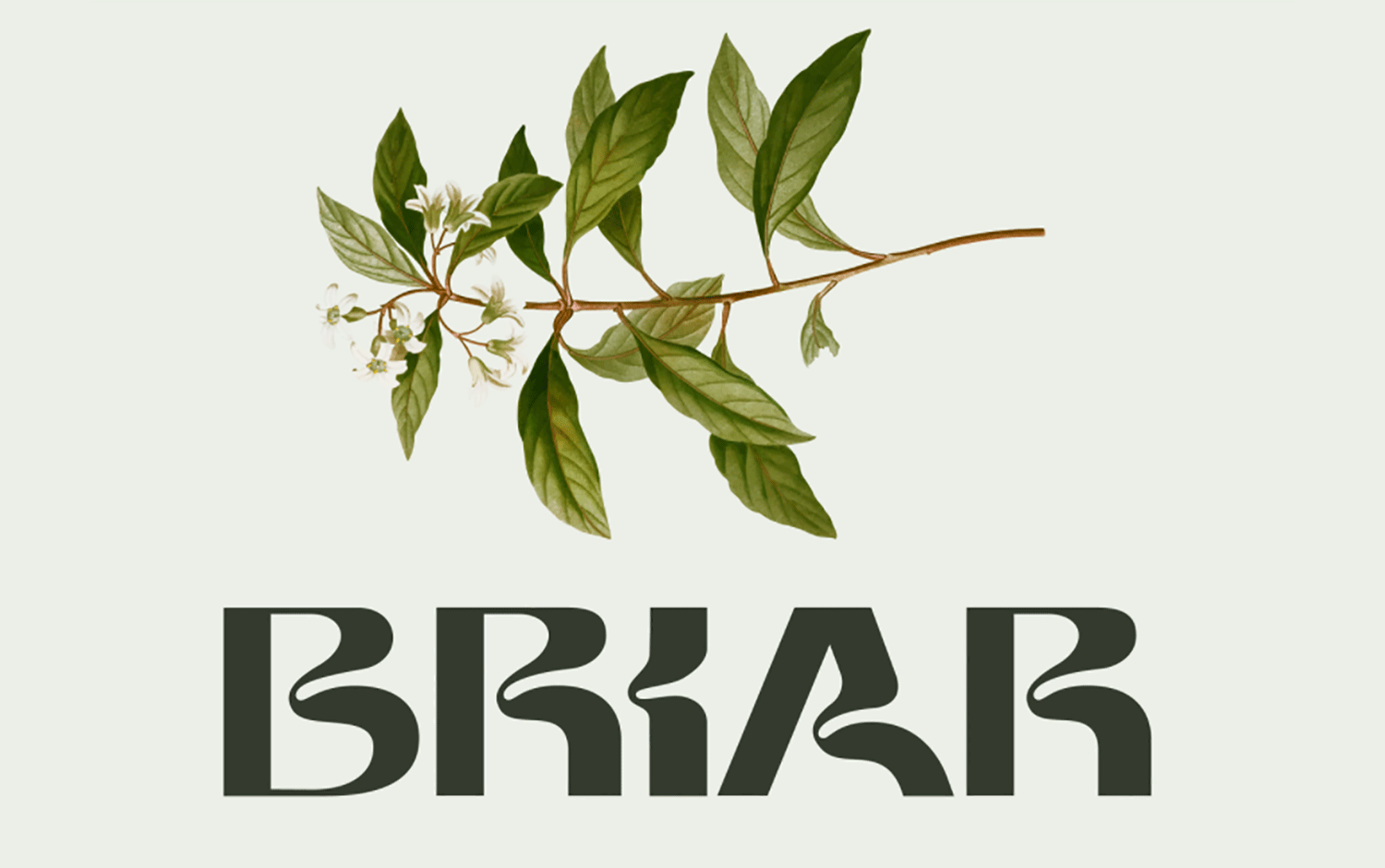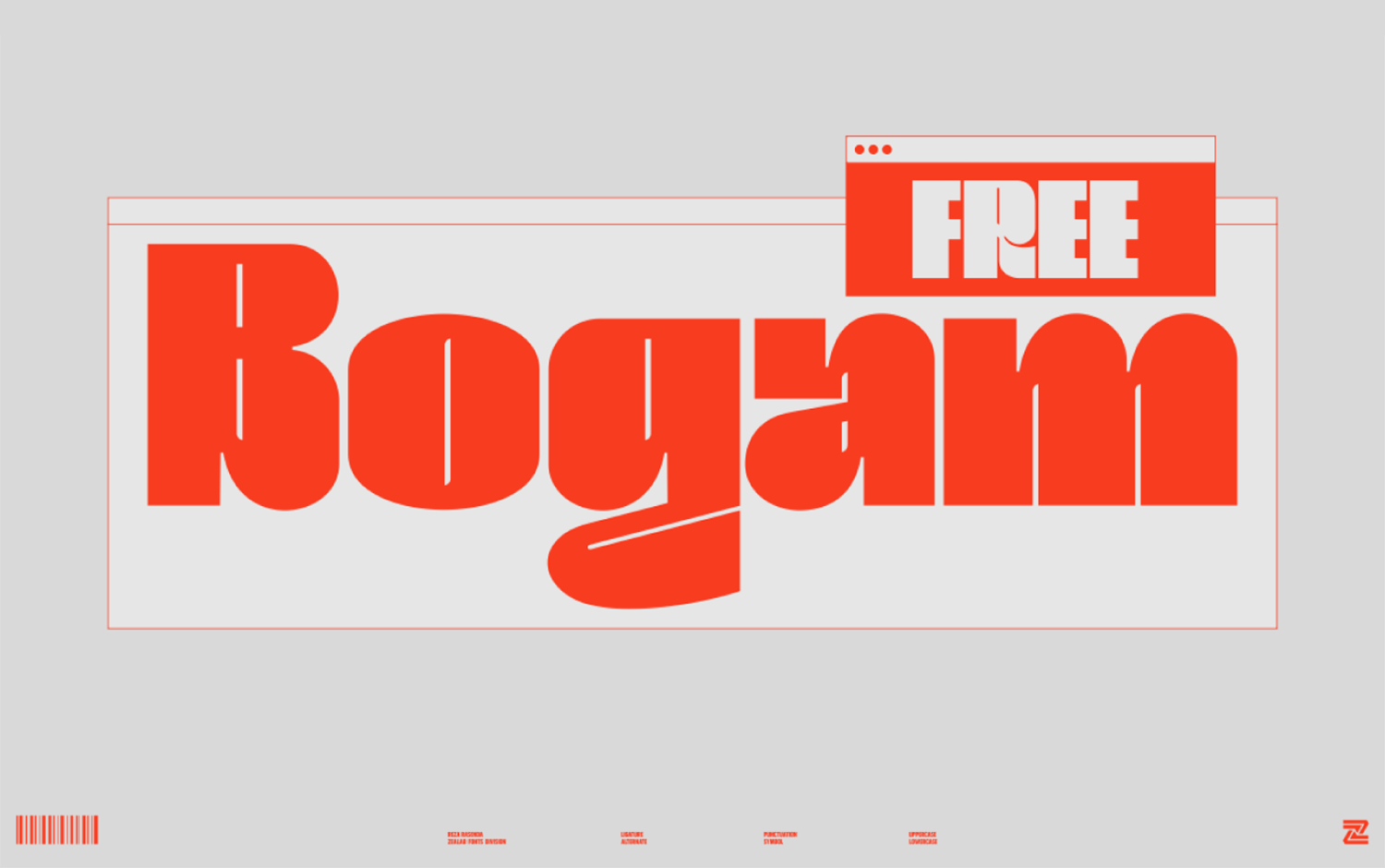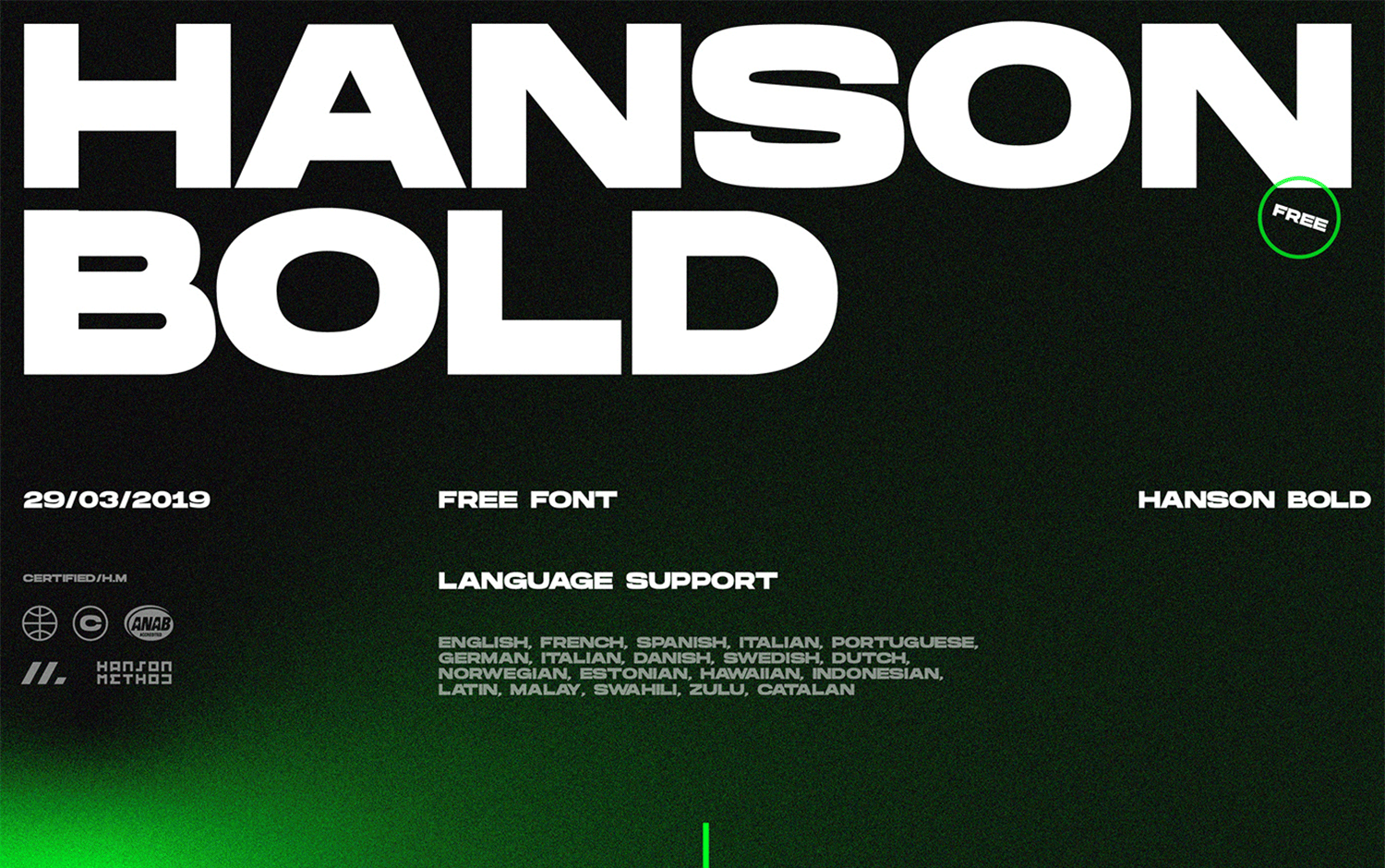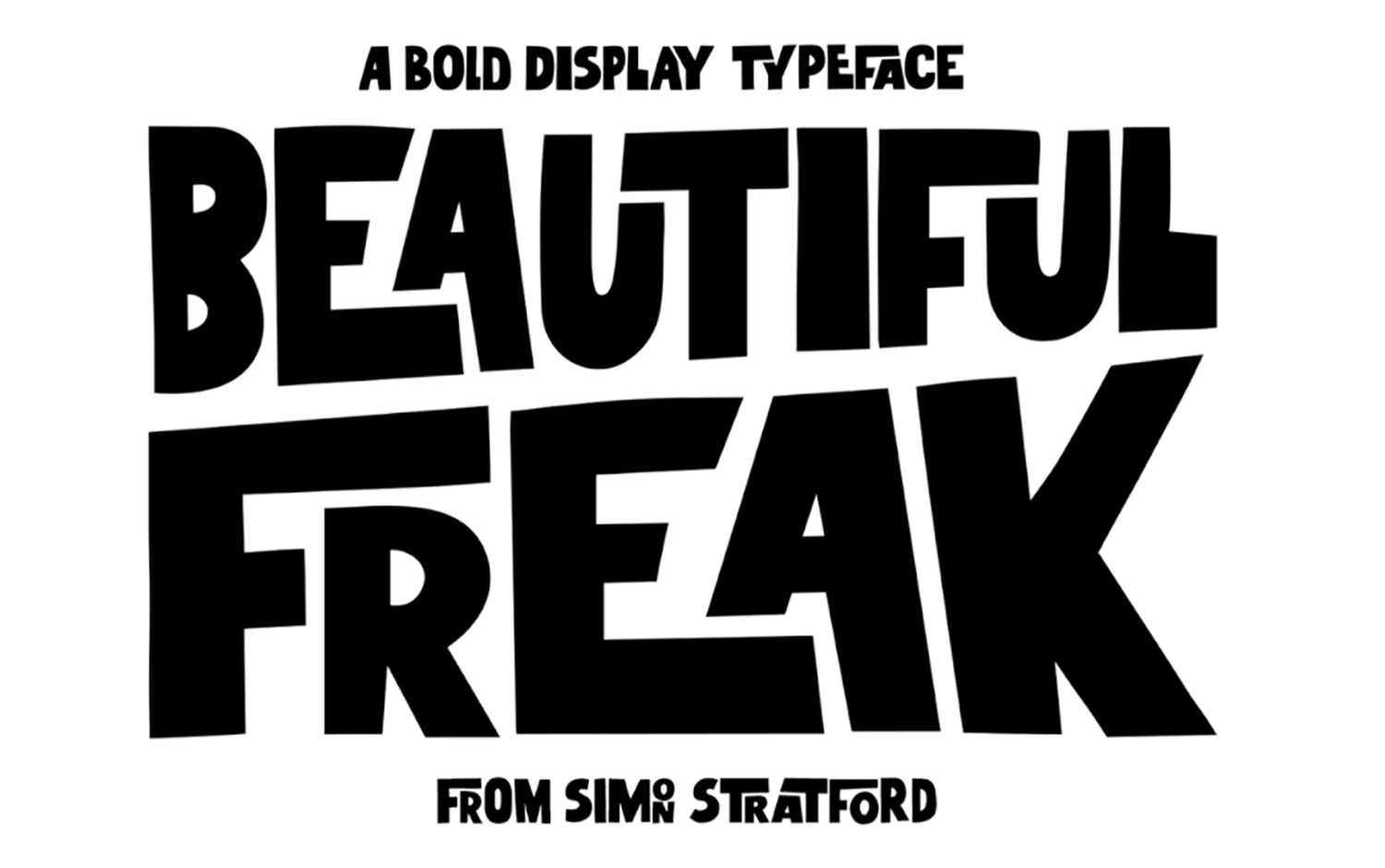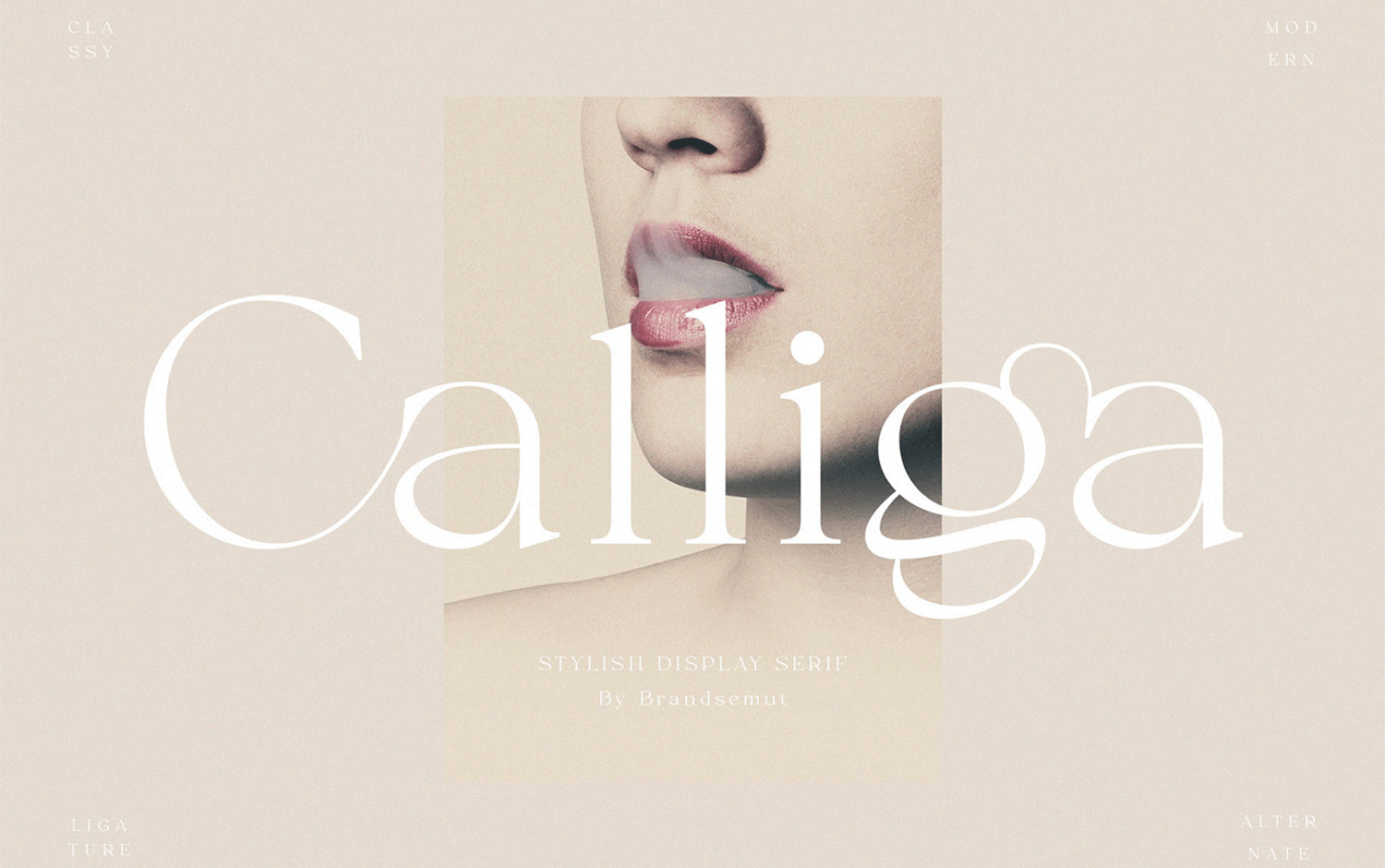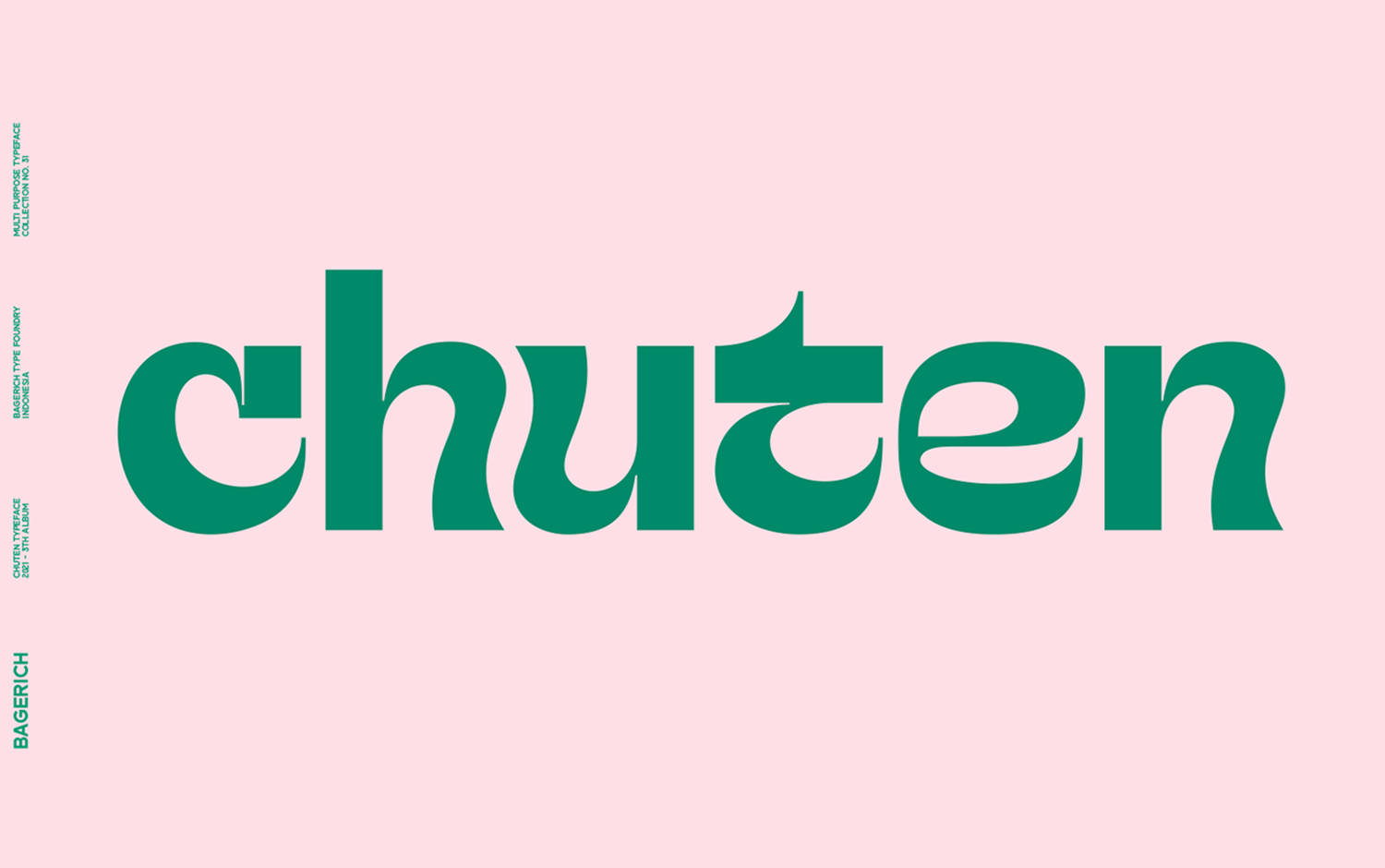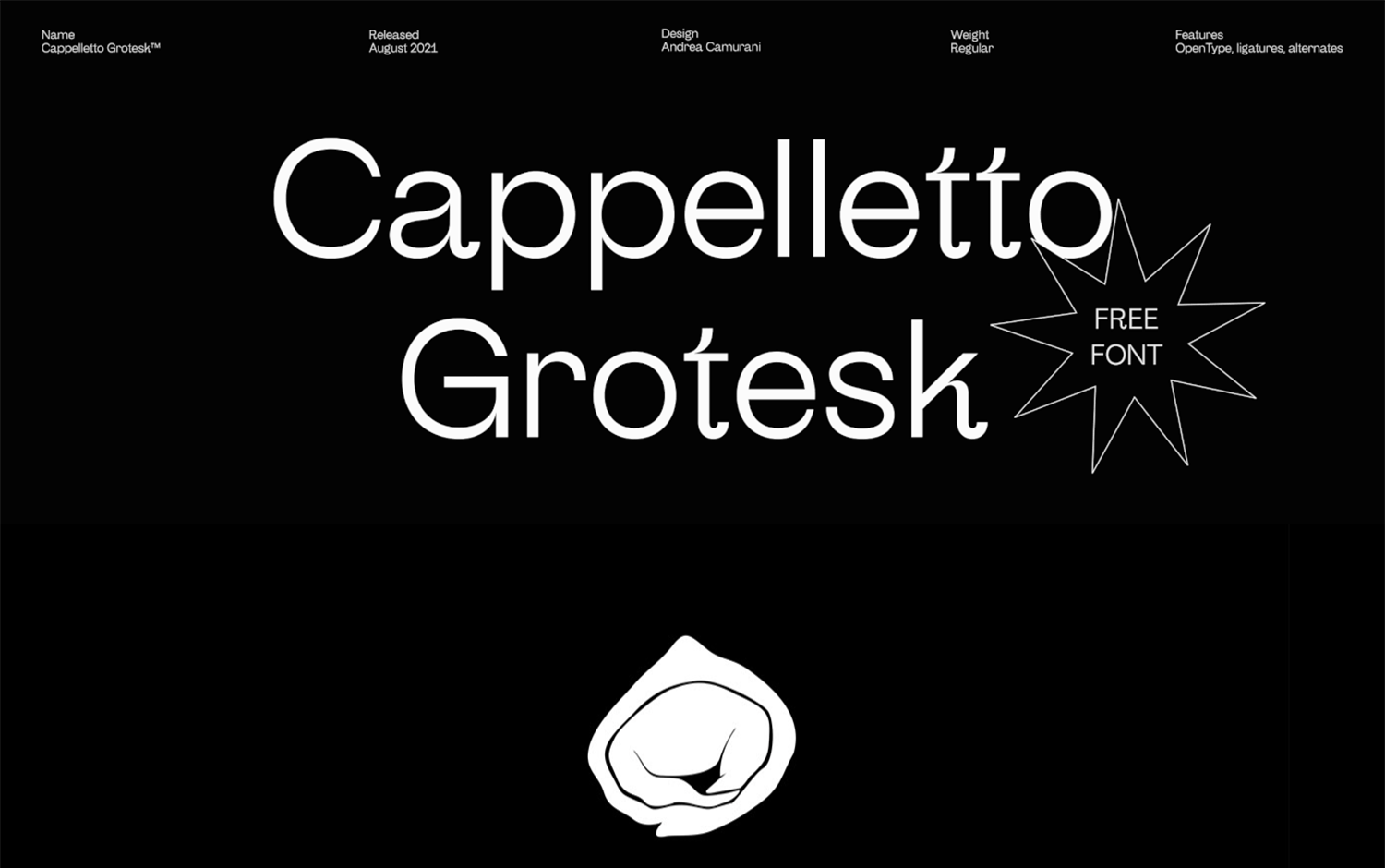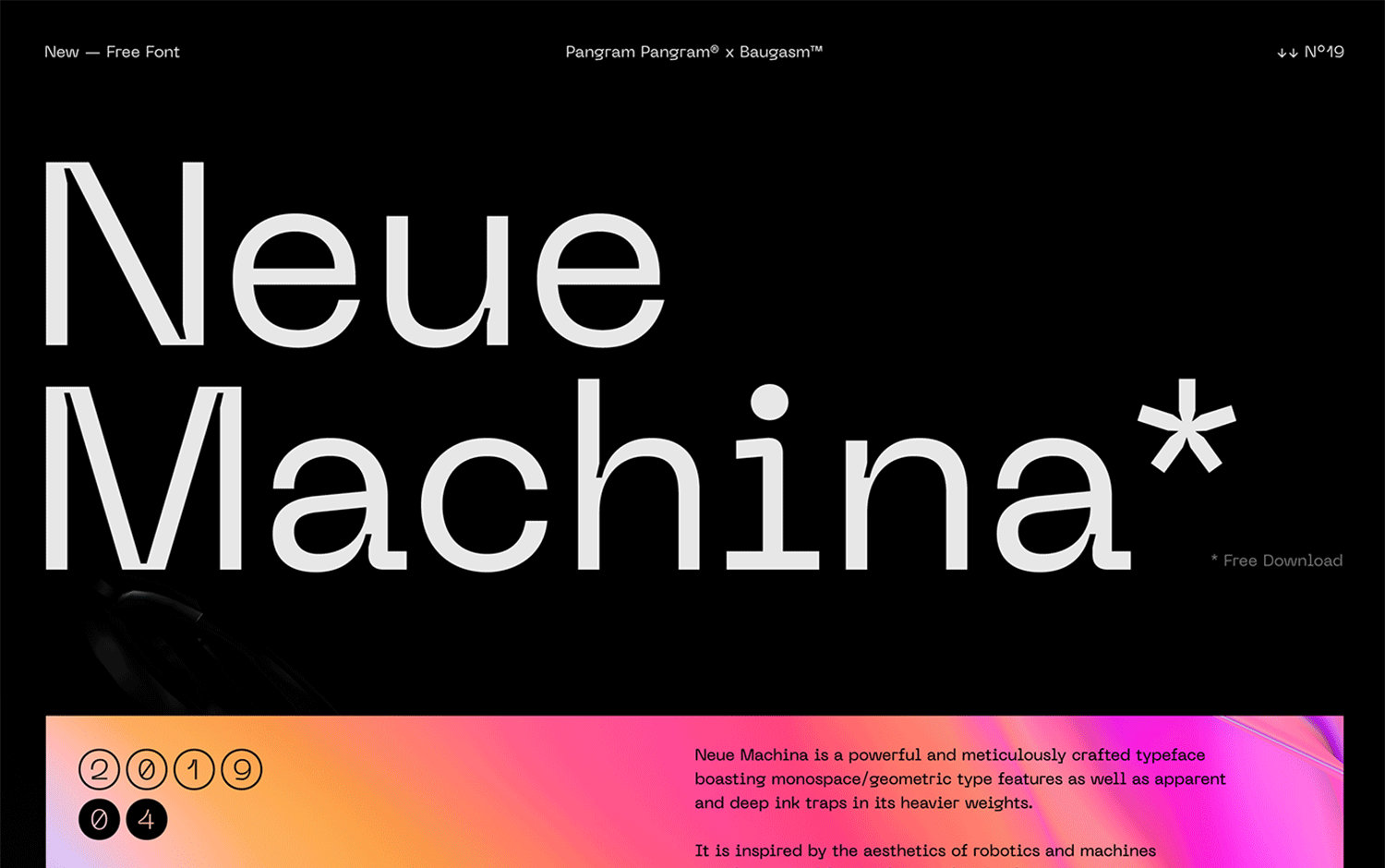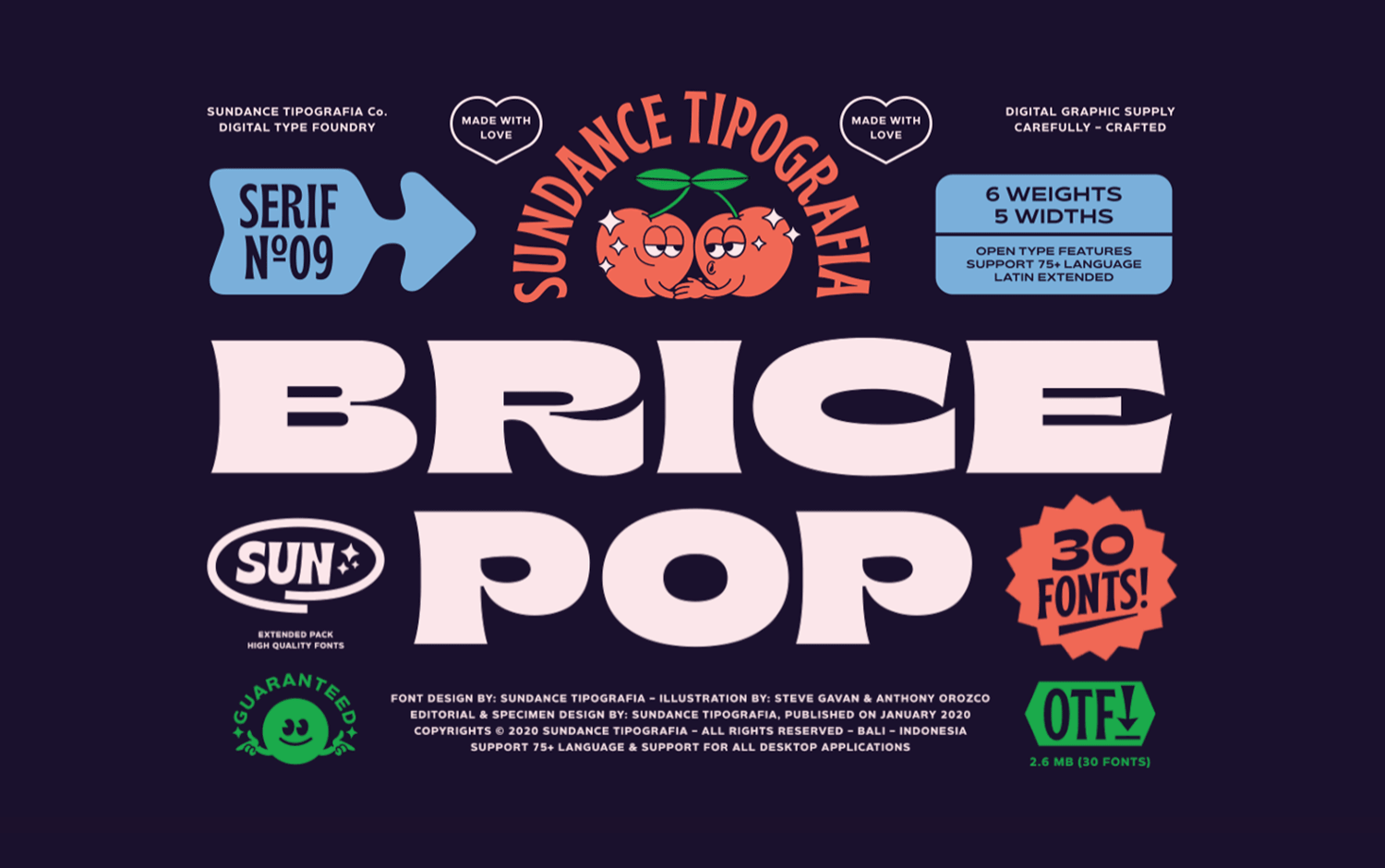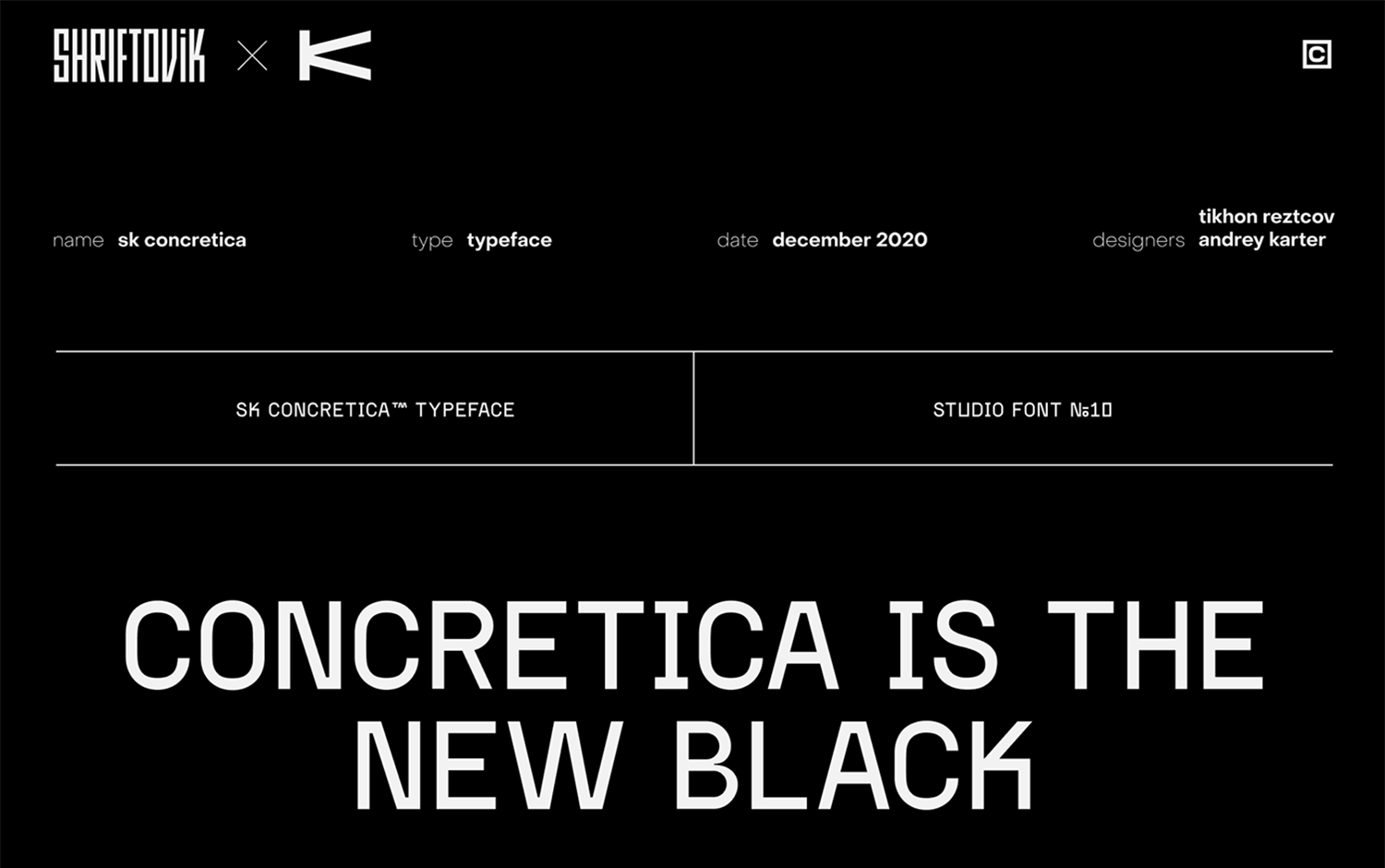
Top 10: September Fonts
We're super excited about this week's Top 10 Series as it couldn't identify us more. If you've followed us for quite a long time, you might know some things about us, for instance, that we are passionate about branding projects. And that we're deeply in love with typography development. Yes, we're showcasing new typefaces for your future projects. Here to you Top 10: September Fonts.
There's no doubt that during the last two years, font trends literally went bolder. The Grotesk style boomed on social media and Behance, but who doesn't love it? As usual, we've carefully and exhaustively curated a stunning selection of typographies that you'll instantly download. We're 100% sure that in your font library, there are tons with no use at all. But, today, we grant you that you'll combine them as you wish as they could create different aesthetics depending on what you're looking for on your next project. As nerds, we are about typography; we don't want to get too involved as we cannot stop later. But this collection features a wide variety of styles. Some of them belong to the Grotesk universe; others have an elegant feel and some others seem to jump from the past with a vintage approach. As we always say, we're happy to provide you with new and fresh aesthetics, which might later be the source of inspiration for your projects.